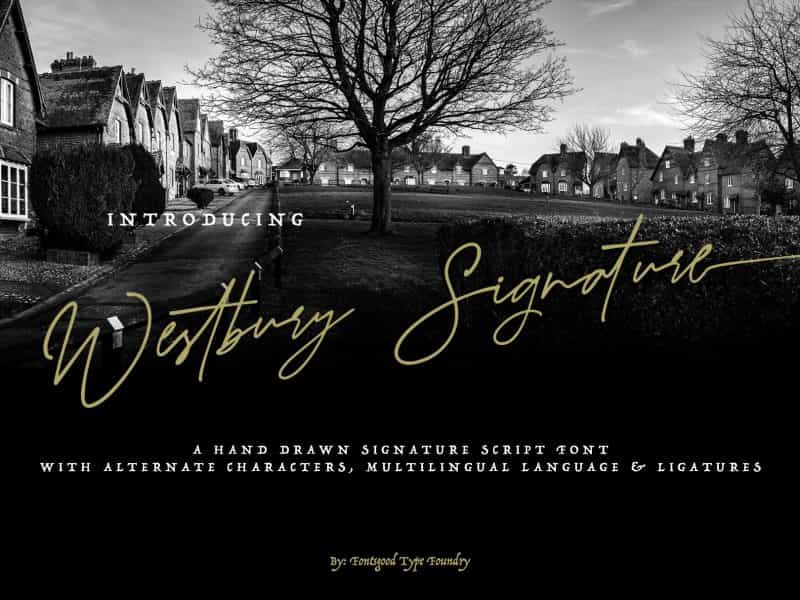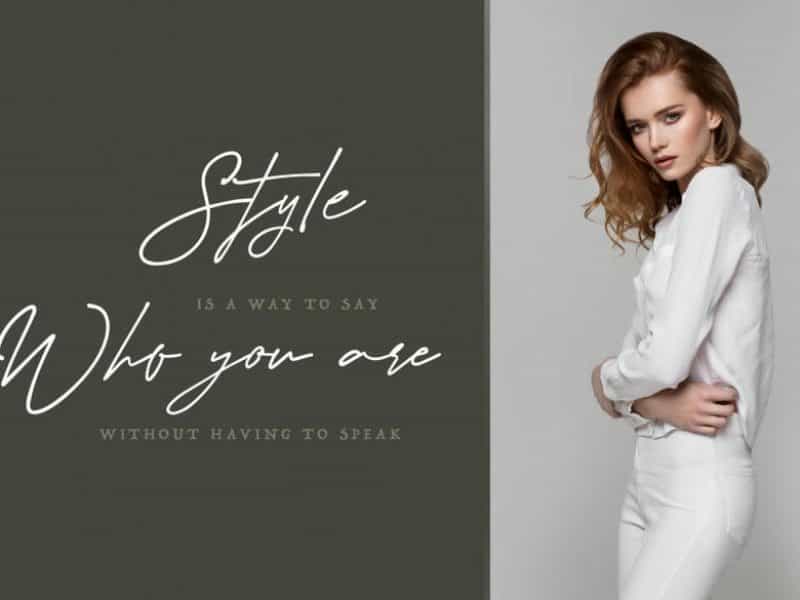
Discover Westbury Signature Demo Font, part of the Calligraphy Handwritten collection—a versatile and unique font perfect for adding a personal touch to your projects. Download it for free and enjoy crafting designs with style, from invitations to social media posts. This font is available exclusively for personal use, giving you the freedom to create without limits. Unlock your creativity with Westbury Signature Demo Font today!
The hand drawn signature script font “Westbury Signature” is being introduced. For those who want to add a touch of elegance, hand-made signature and modernity to their designs this font is just for you!